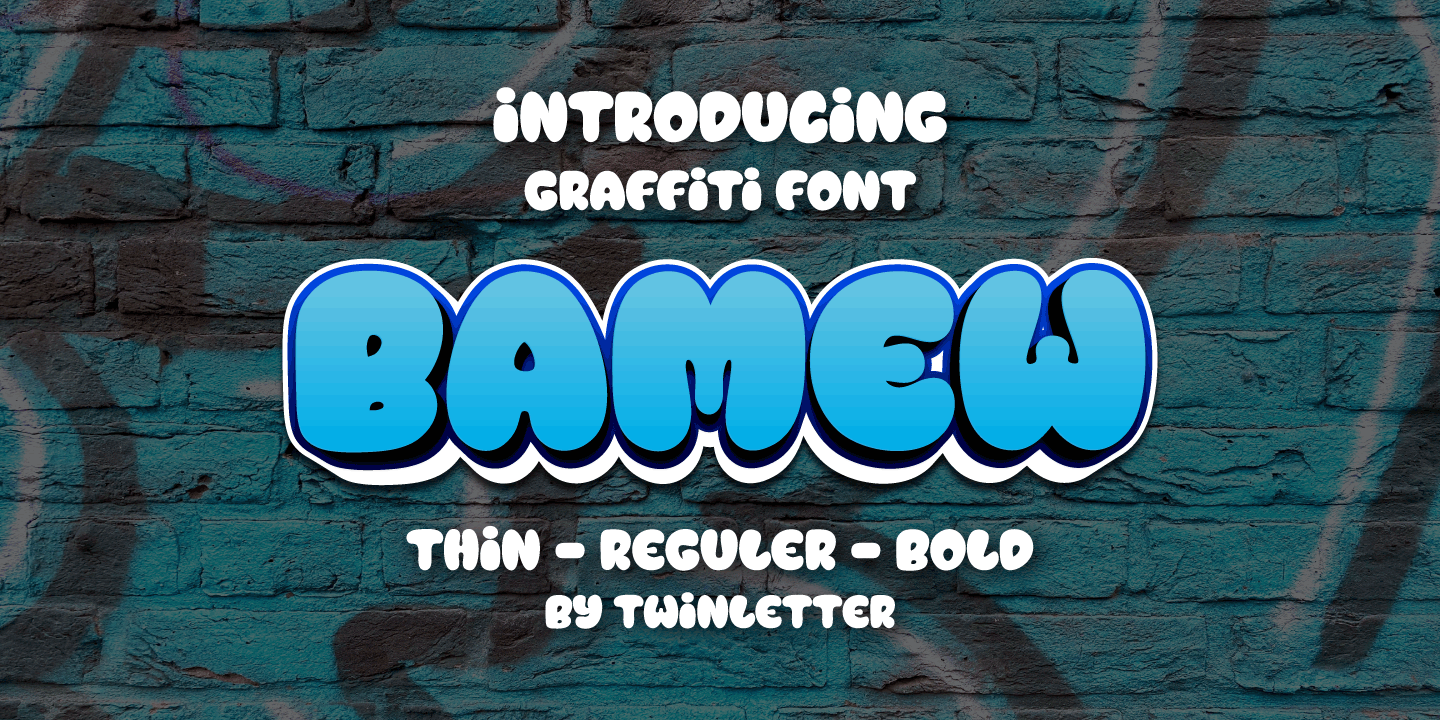
The Bamew Font is an excellent choice for designs that aim for a bold, modern, and often quirky or distinctive display aesthetic. Imagine it making a strong statement on a contemporary magazine cover, defining the visual identity for an innovative startup, or adding an unconventional edge to music album art. It's also perfectly suited for impactful posters, eye-catching advertisements, dynamic social media graphics, and any project where you want to convey a sense of originality, playfulness, and a unique artistic flair. Its often robust forms, unique curves, and assertive presence make it ideal for conveying confidence and a memorable statement.
What makes the Bamew Font so exciting is its ability to instantly capture attention with its unconventional yet harmonious letterforms. It frequently features unexpected twists or a subtle asymmetry that gives it a distinct personality without sacrificing legibility. This font has a vibrant and self-assured character that can instantly elevate your design, making it feel both sophisticated and daring. It's designed to be a focal point, ensuring your message is not just seen, but remembered for its distinctive and modern appeal.
The Bamew Font family typically might focus on a few impactful weights, as its primary purpose is high-impact display use rather than extensive body text. It often includes unique ligatures or stylistic alternates that allow for highly customized and visually dynamic typographical compositions. These features empower designers to create truly unique and artistic headlines, ensuring the Bamew Font Free Download can adapt to a wide array of projects while maintaining its signature, bold charm.